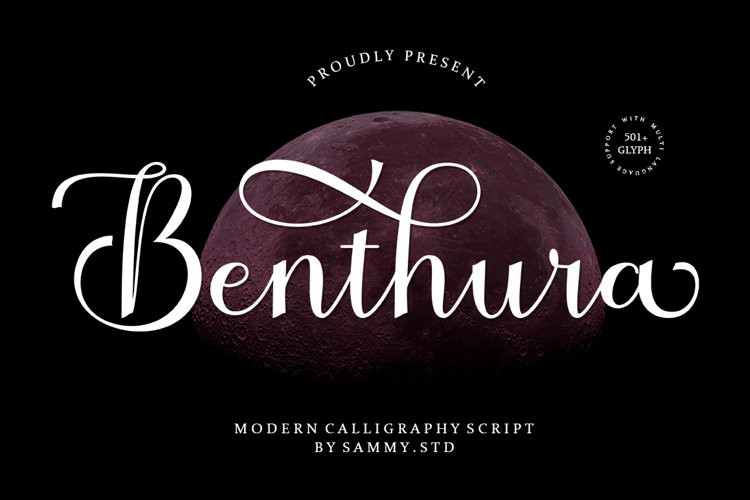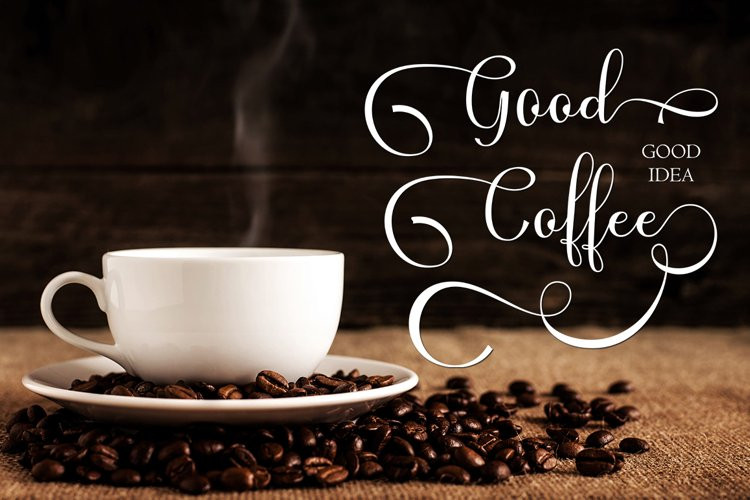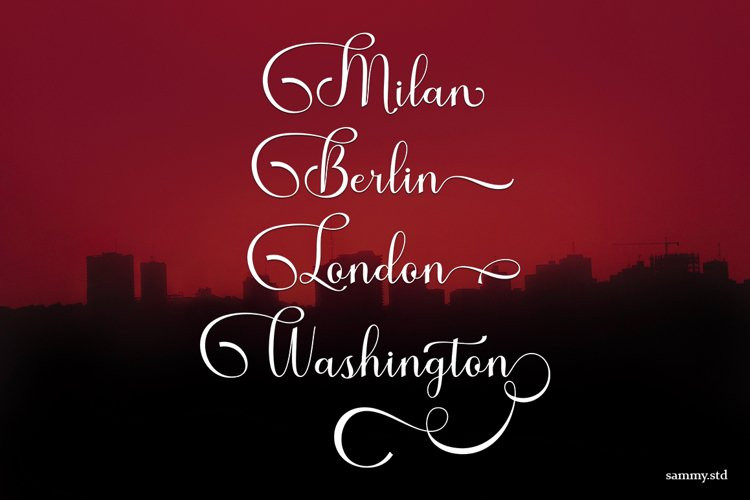
Benthura Font
Benthura FontBenthura Script is a modern calligraphy. bold, elegant & fun vintage script font. Can be used for various purposes.such as logos, wedding invitation, t-shirt, letterhead, signage, news, posters, badges etc.
Benthura Script features 510 glyphs and 279 alternate characters, ligatures, swash and multiple language support.